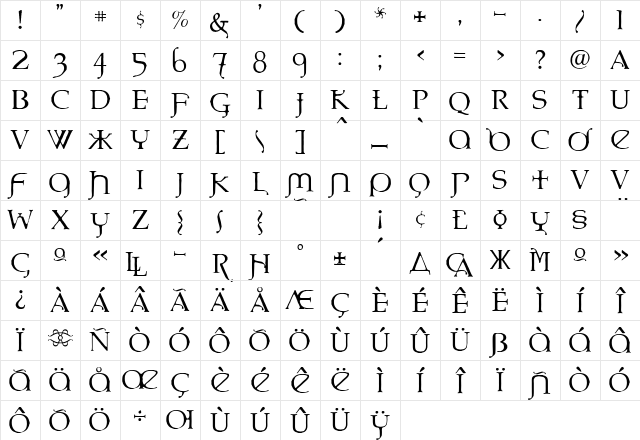
LHF Eremaeus Regular Free Font
LHF Eremaeus Regular
Complete LHF Eremaeus Regular glyph index. Displaying only characters natively supported by LHF Eremaeus Regular font.
Design Context for LHF Eremaeus
LHF Eremaeus is a composed and adaptable typeface that performs quietly and consistently across a wide range of design contexts.